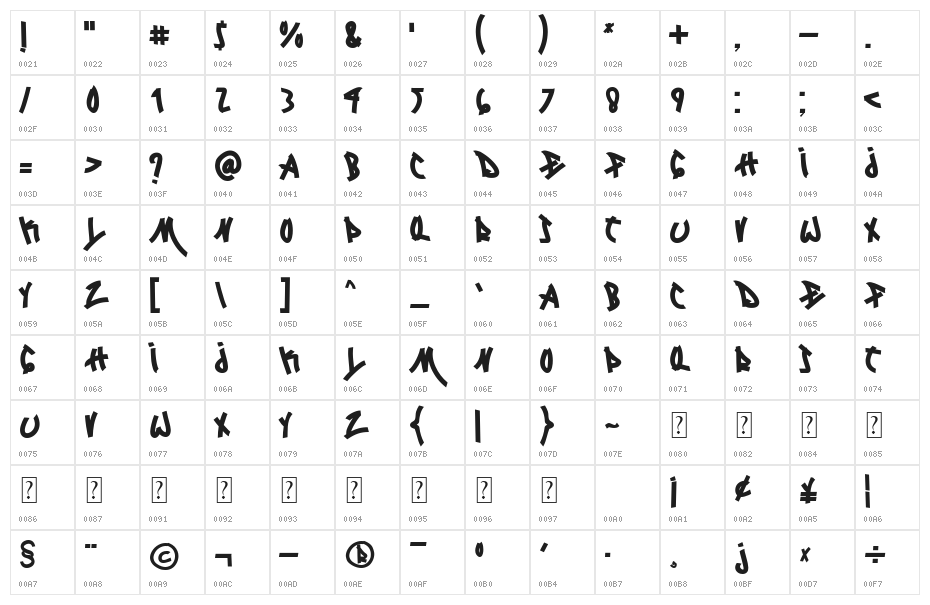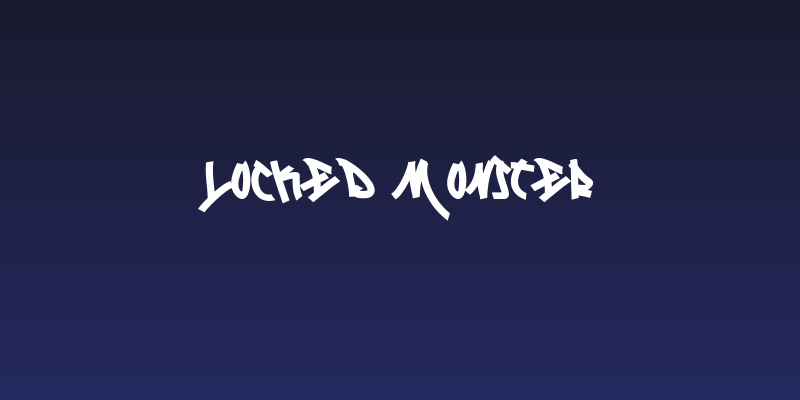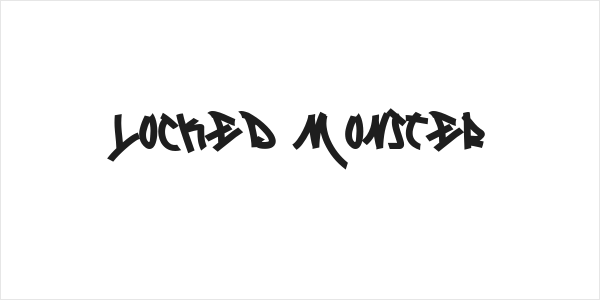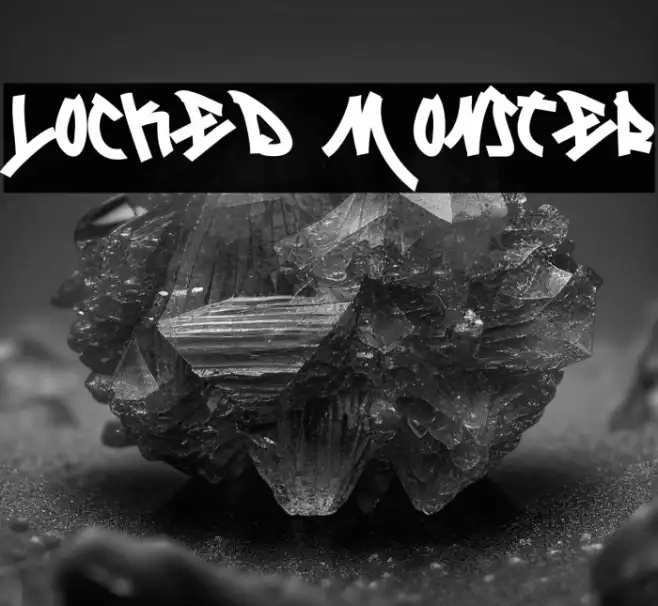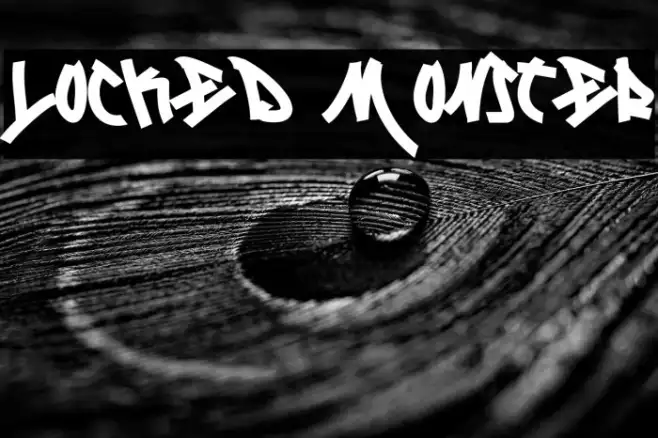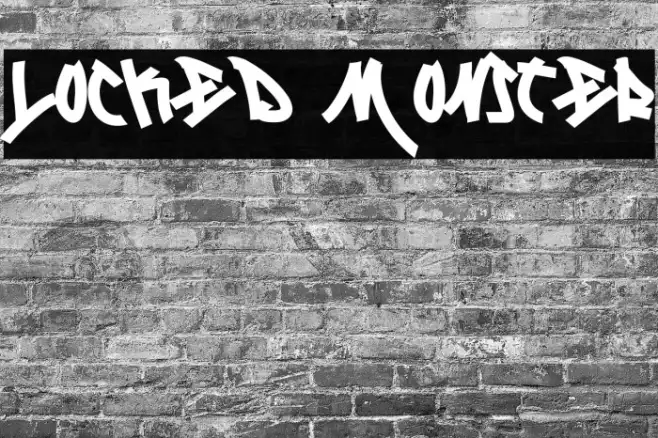
Locked Monster Font
Locked Monster Description
This font features a bold and dynamic style, characterized by its sharp angles and exaggerated curves. The letters exhibit a graffiti-inspired aesthetic, with a sense of movement and energy. The uppercase and lowercase characters maintain a consistent style, while the numbers and special characters complement the overall design. The font's boldness and unique flair make it stand out, suitable for projects that require a strong visual impact.
| Overall Style | Modern, Urban |
| Proposed Projects | Ideal for street art designs, urban-themed posters, music album covers, and edgy branding projects. |